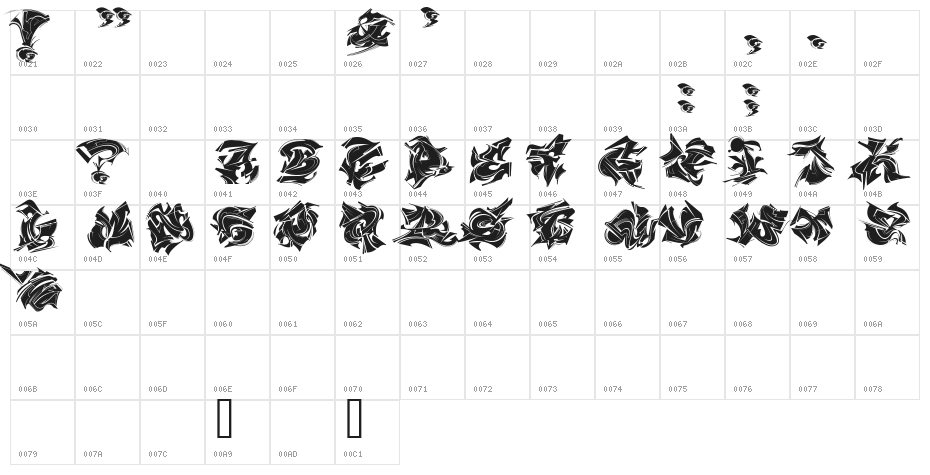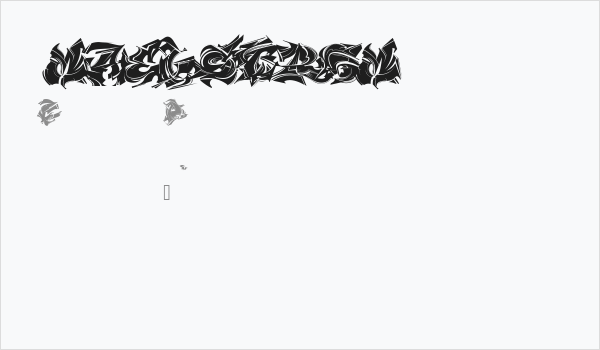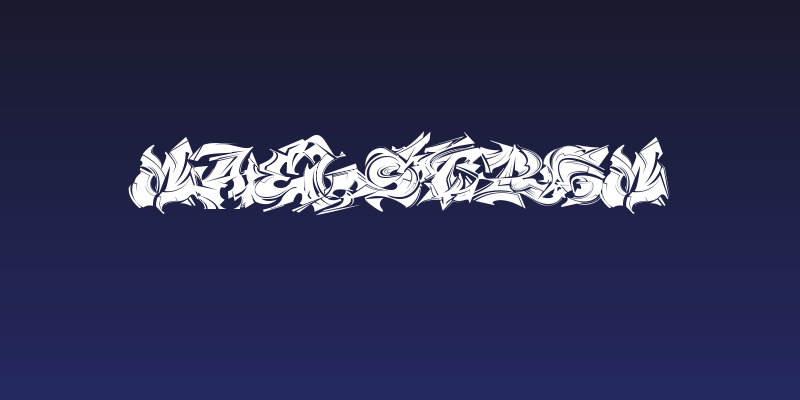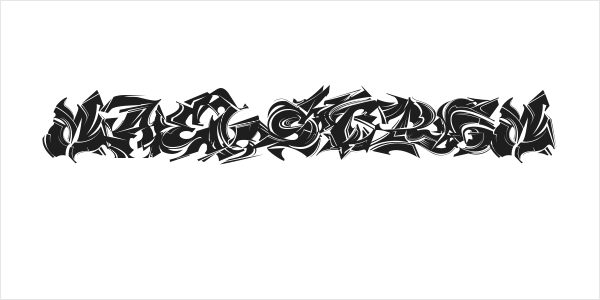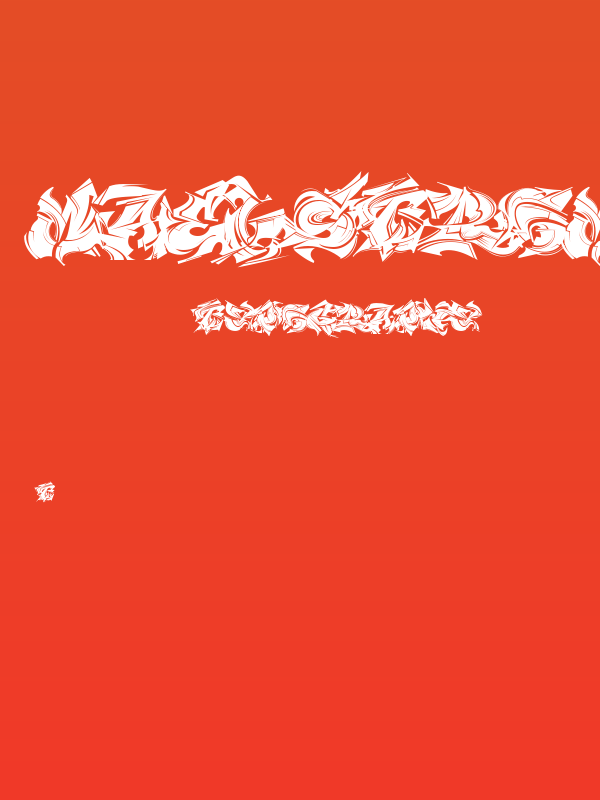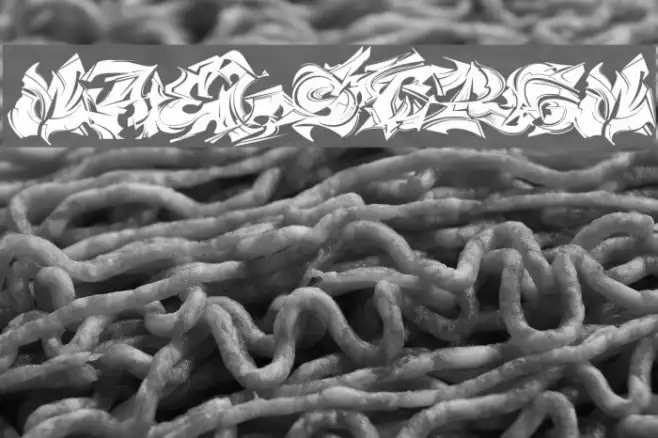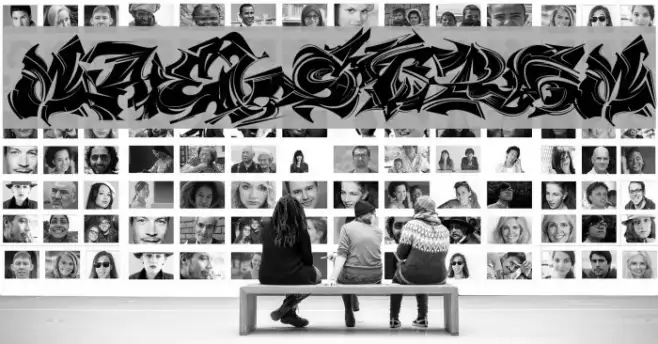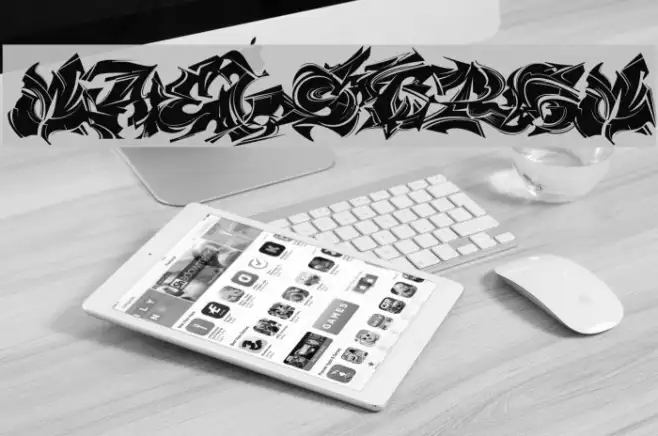
MAELSTROM Font
MAELSTROM Description
This font is a highly decorative and intricate design, reminiscent of graffiti art. Each character is uniquely stylized with sharp angles and flowing curves, creating a dynamic and energetic appearance. The letters are bold and densely packed, with a strong emphasis on artistic expression. The overall look is chaotic yet controlled, making it a standout choice for projects that require a bold statement. The font's complexity and artistic flair make it suitable for creative and unconventional uses.
| Proposed Projects | Ideal for street art projects, album covers, urban-themed posters, and edgy branding materials. |